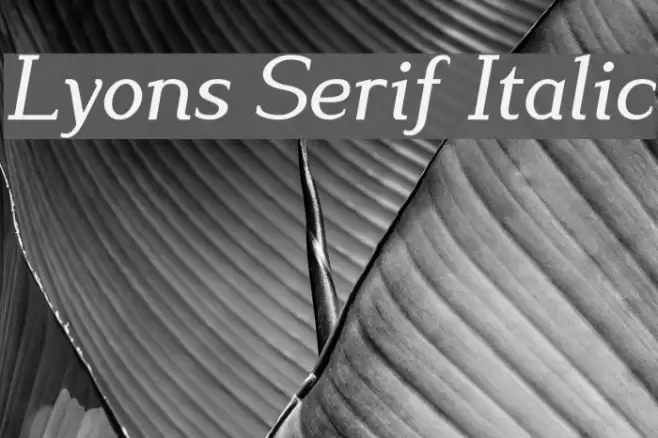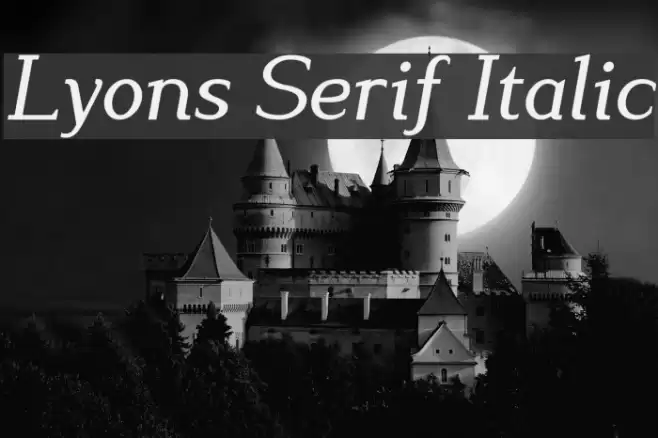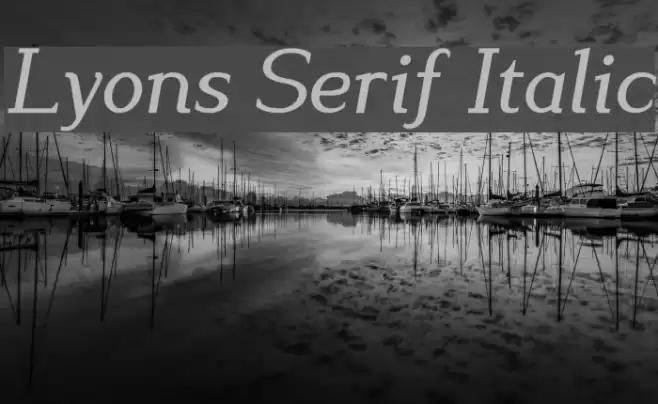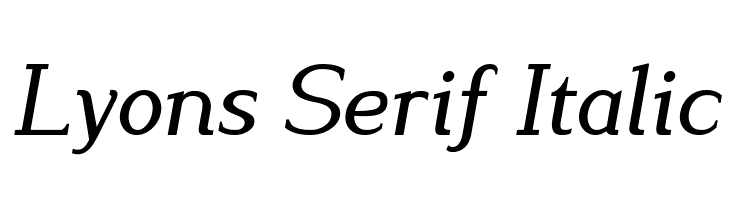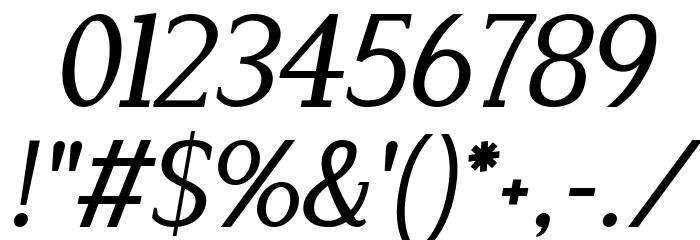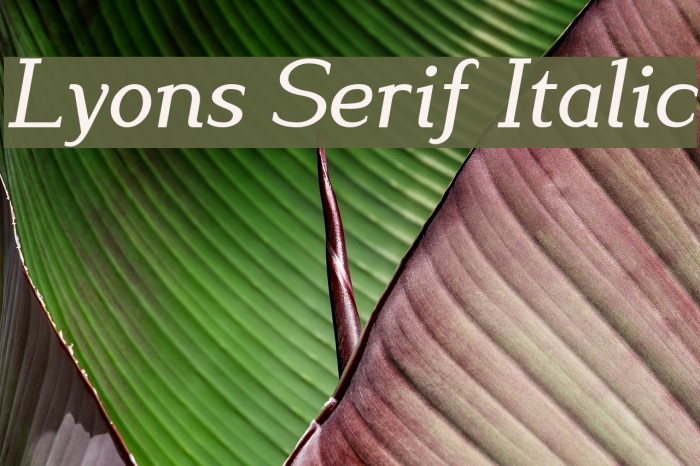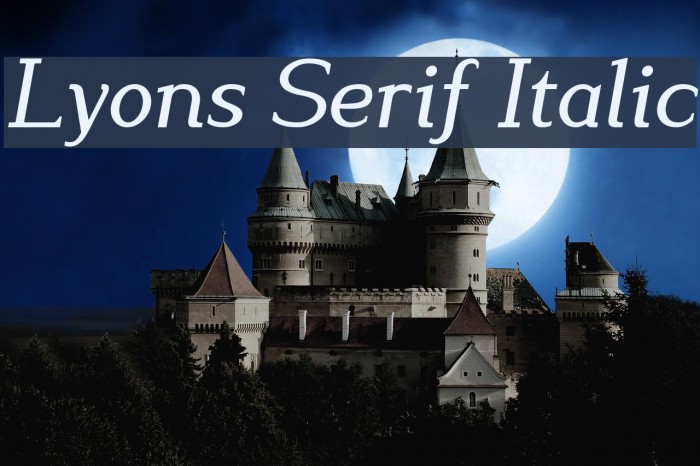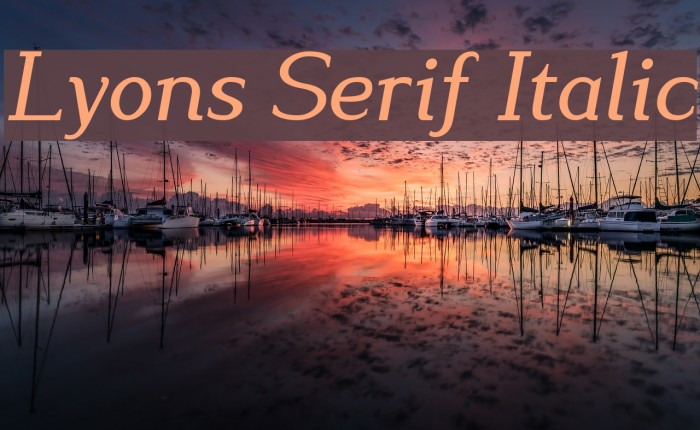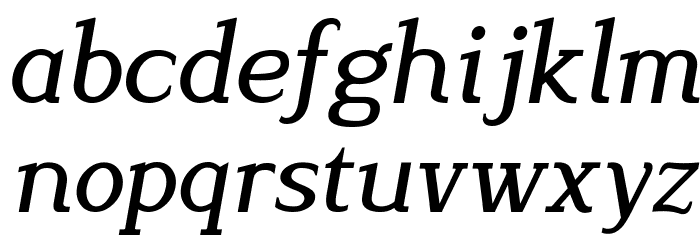
Lyons Serif Italic Font
Lyons Serif Italic Description
This font exudes a classic elegance with its italicized serif style, offering a sophisticated and timeless appearance. The letters are gracefully slanted, providing a sense of motion and fluidity. The serifs are pronounced yet refined, adding to the font's readability and charm. The uppercase letters stand tall with a dignified presence, while the lowercase letters maintain a harmonious balance with their slightly rounded forms. Numbers are clear and distinct, ensuring legibility in various contexts. Special characters are thoughtfully designed, complementing the overall aesthetic. This font is ideal for projects that require a touch of class and tradition.
An elegant italic serif font with a classic and sophisticated style from Uncategorized fonts.
- Proposed Projects: Ideal for formal invitations, editorial design, book covers, and branding that requires a classic touch.
- Overall Style: Classic